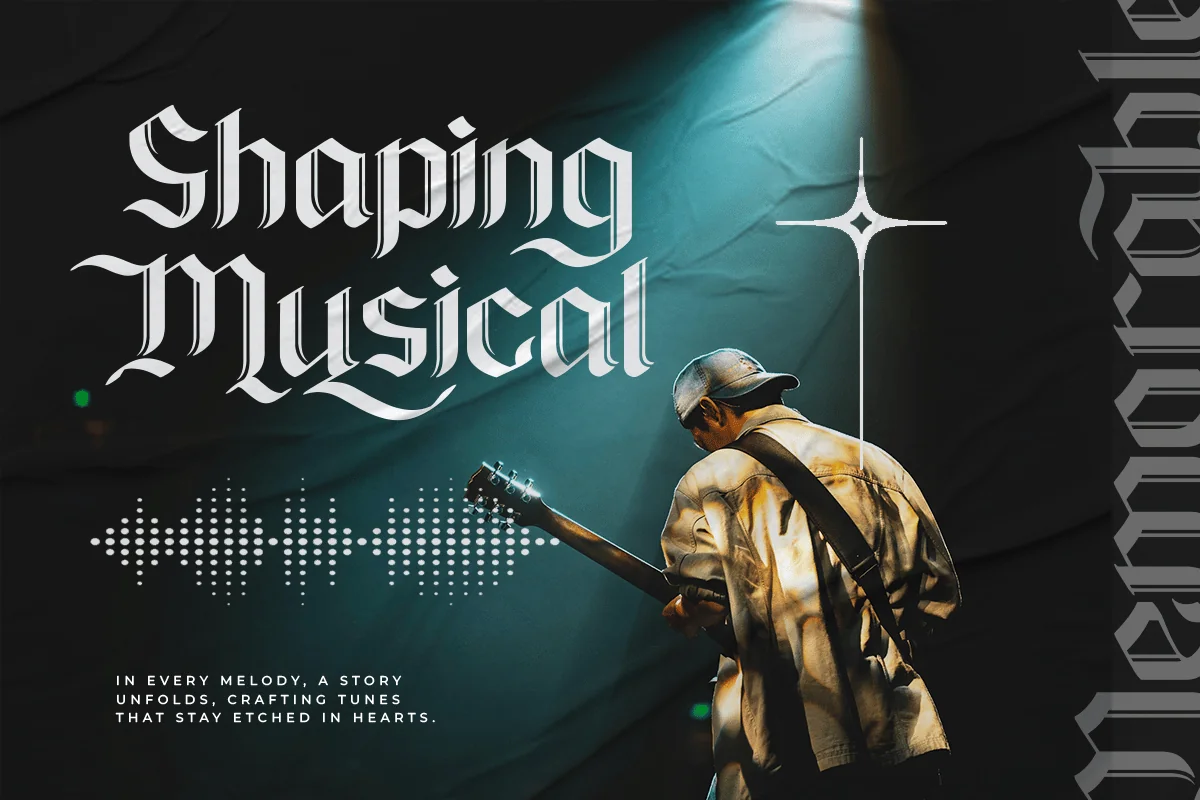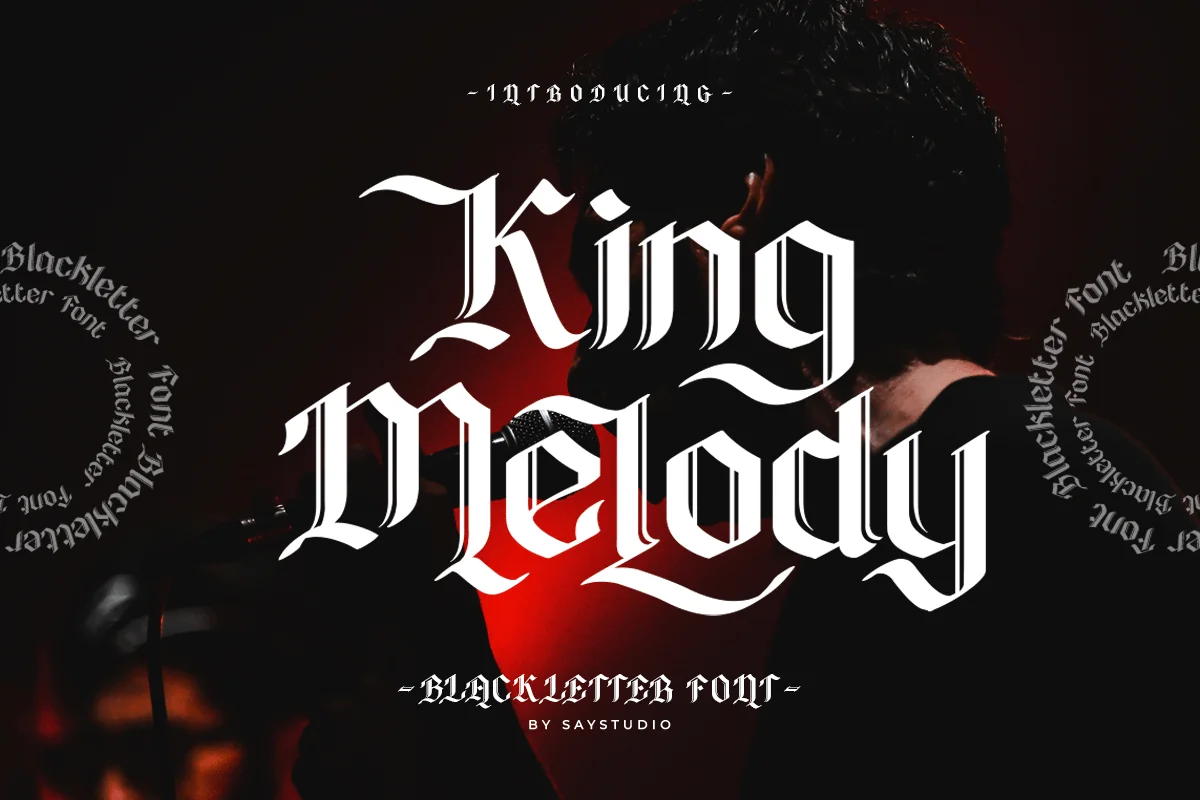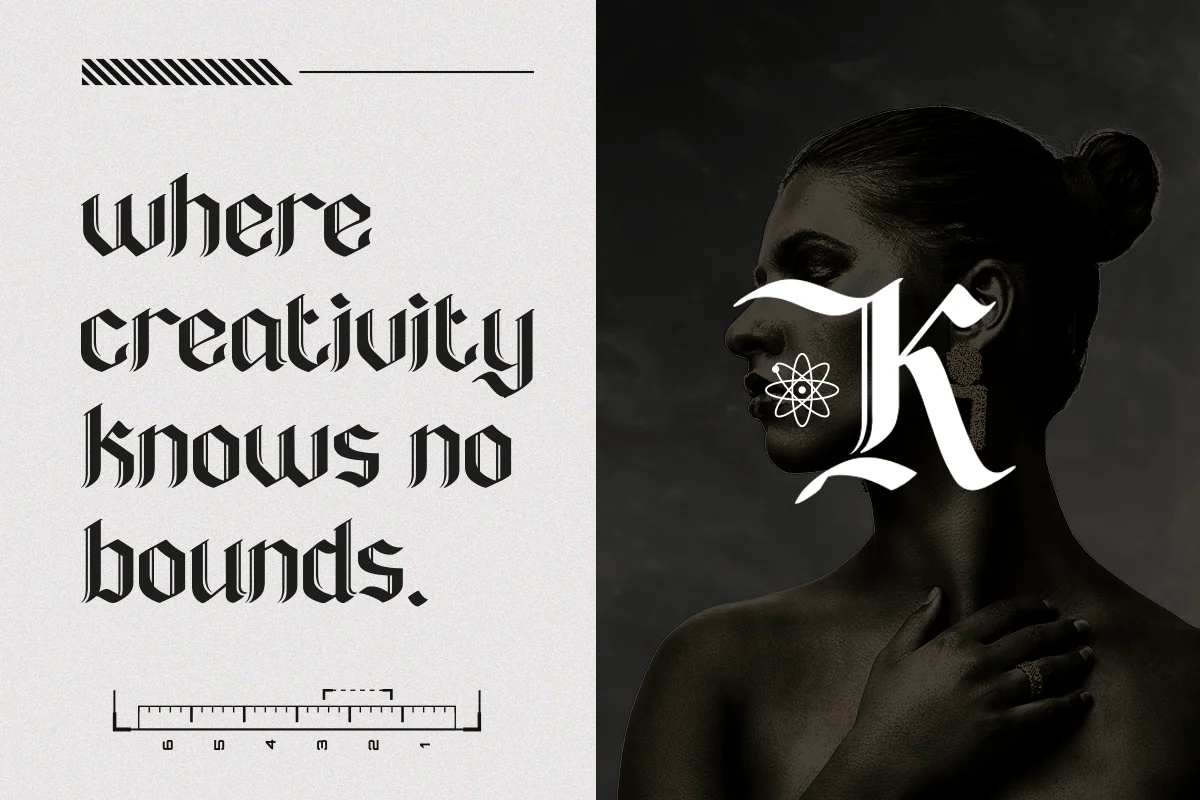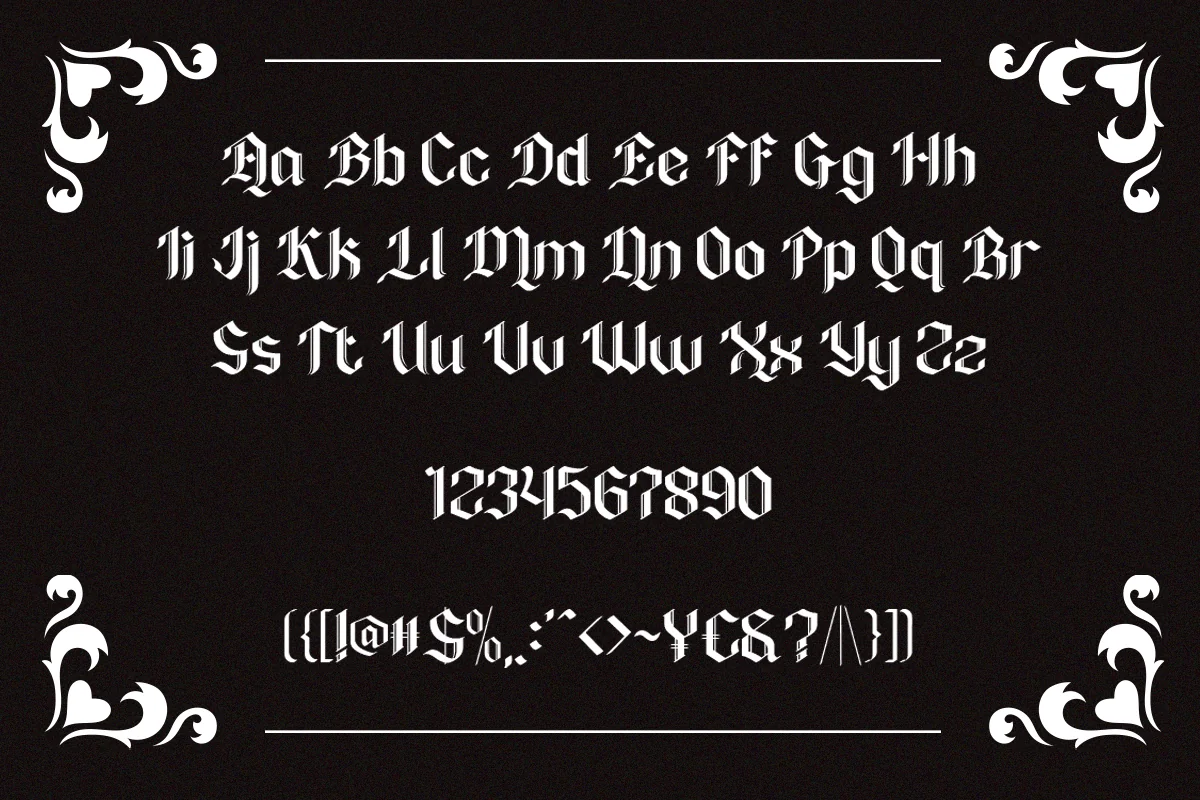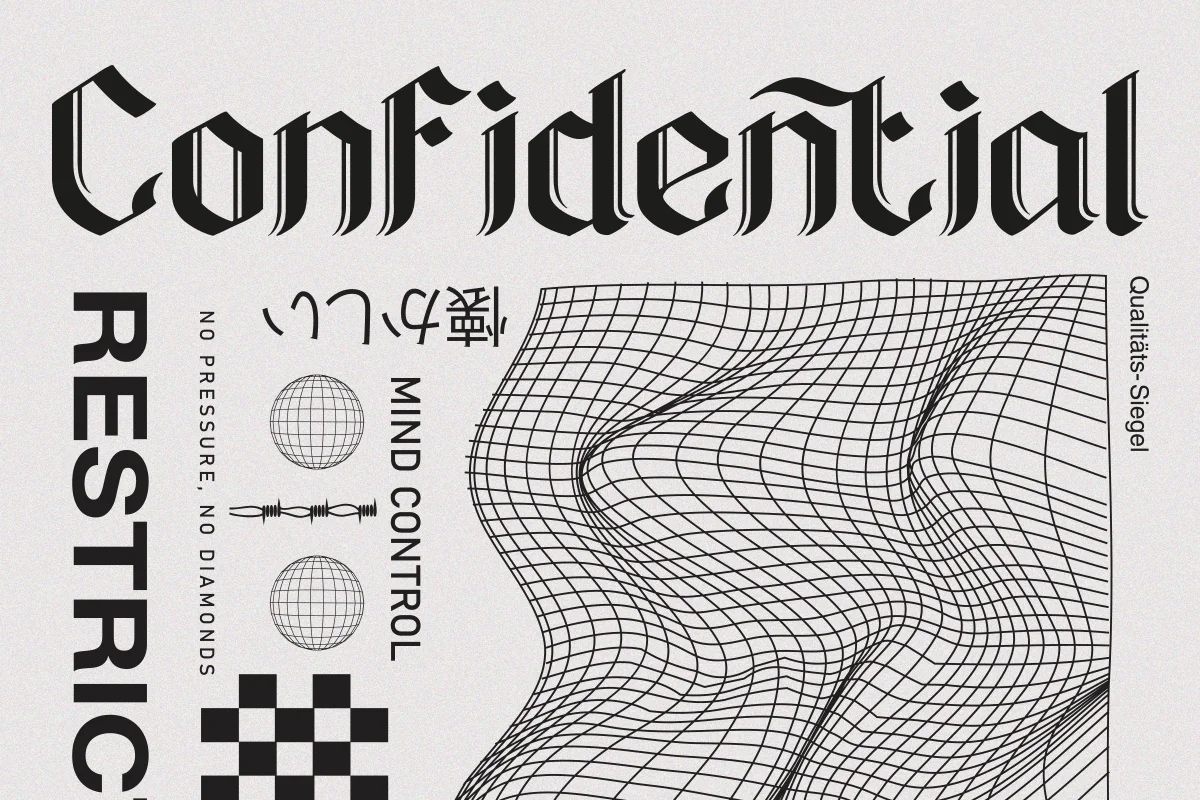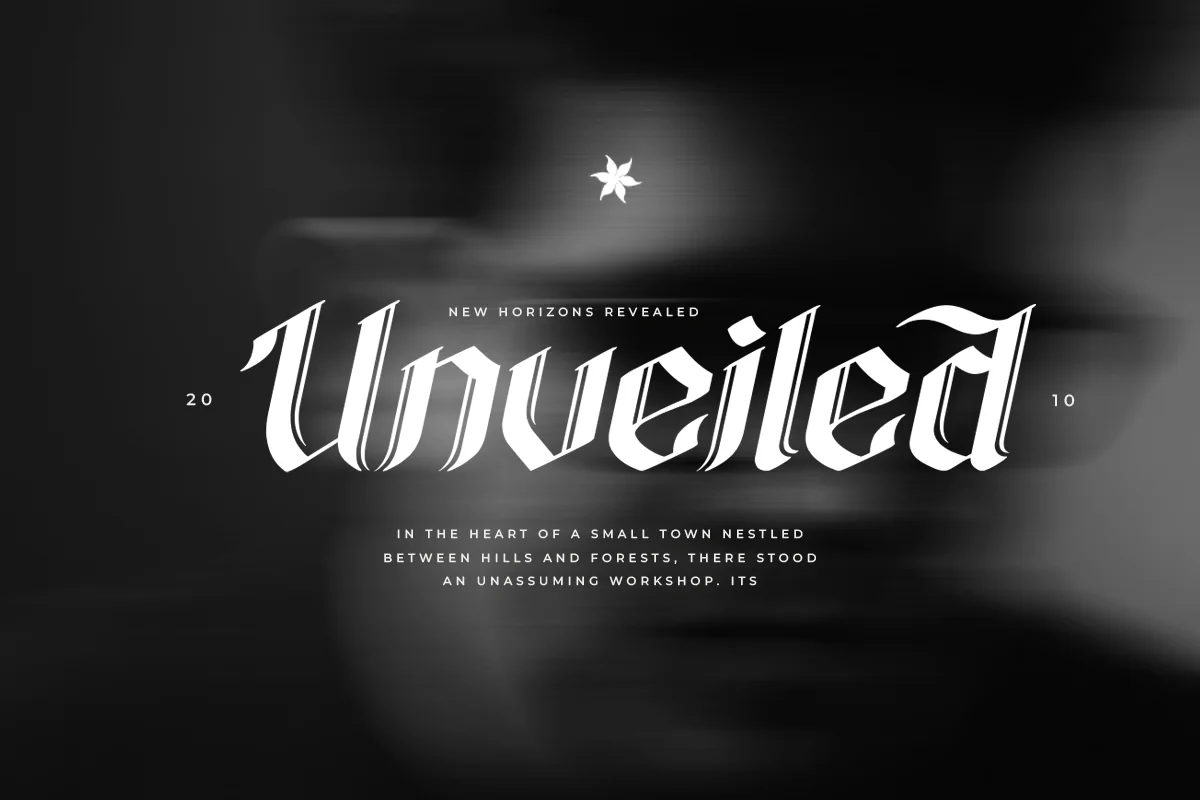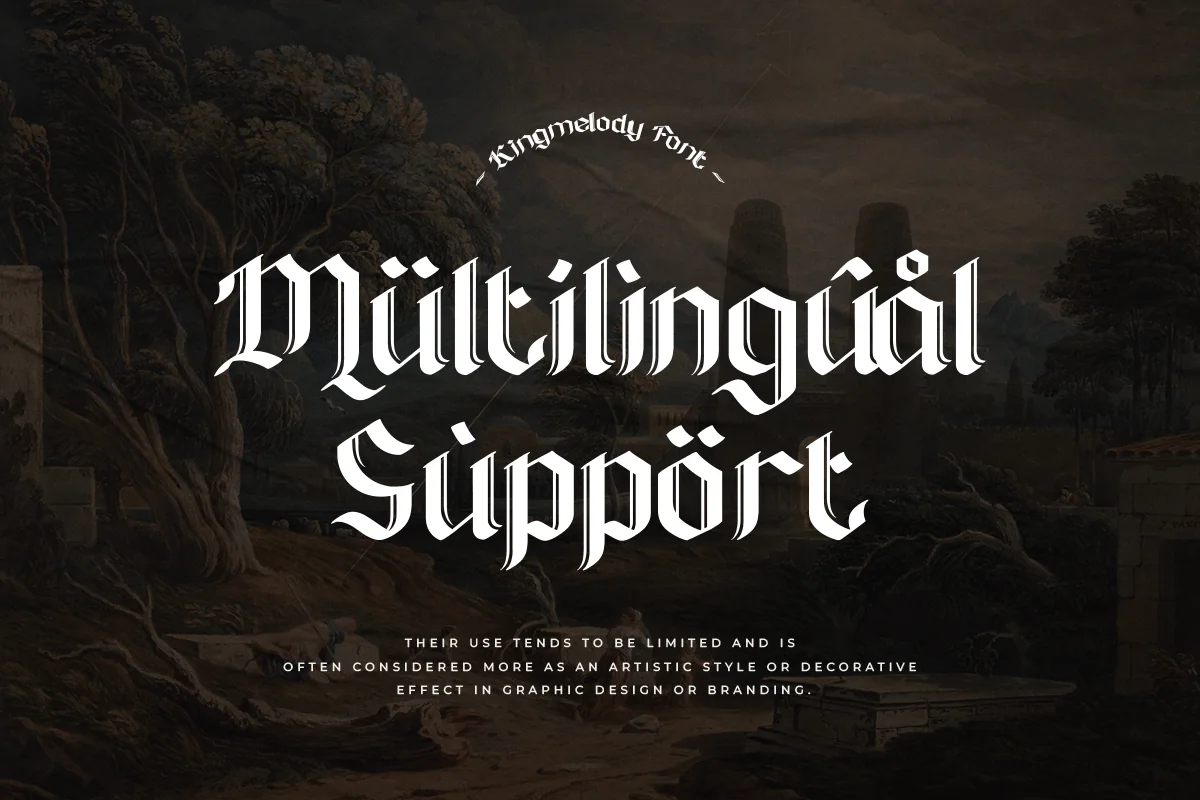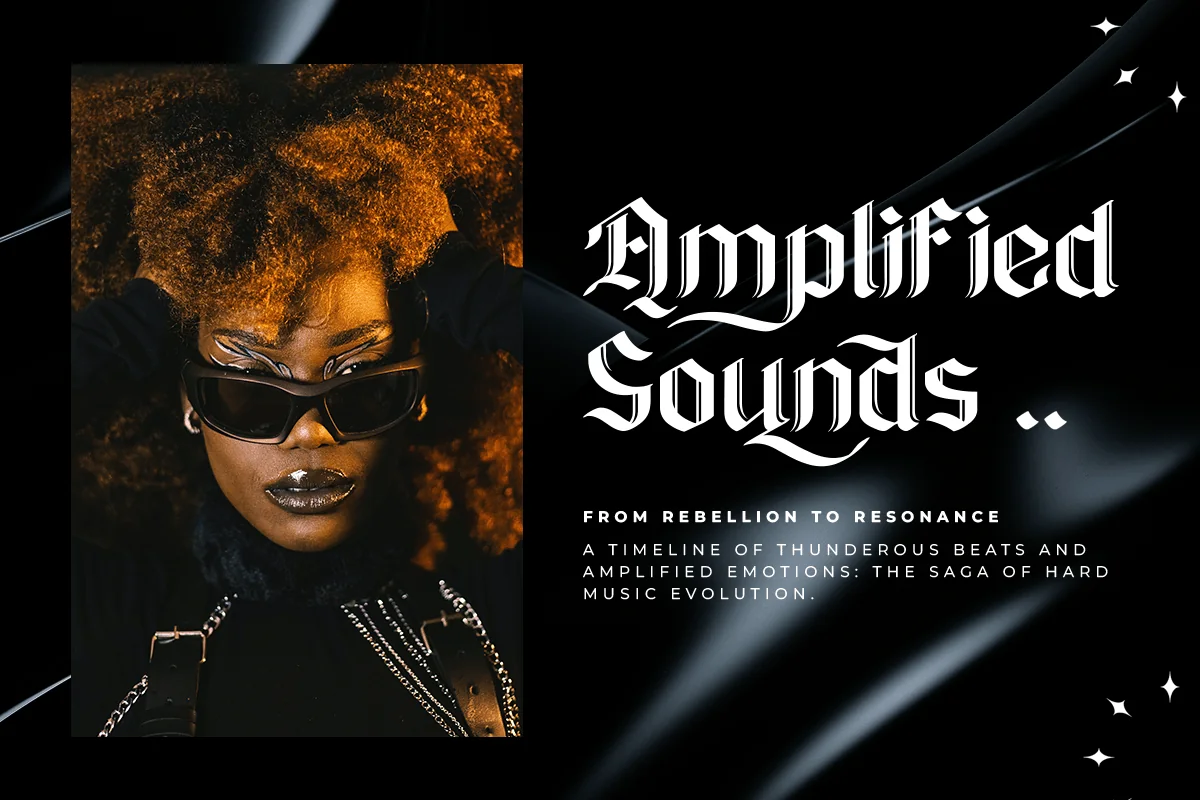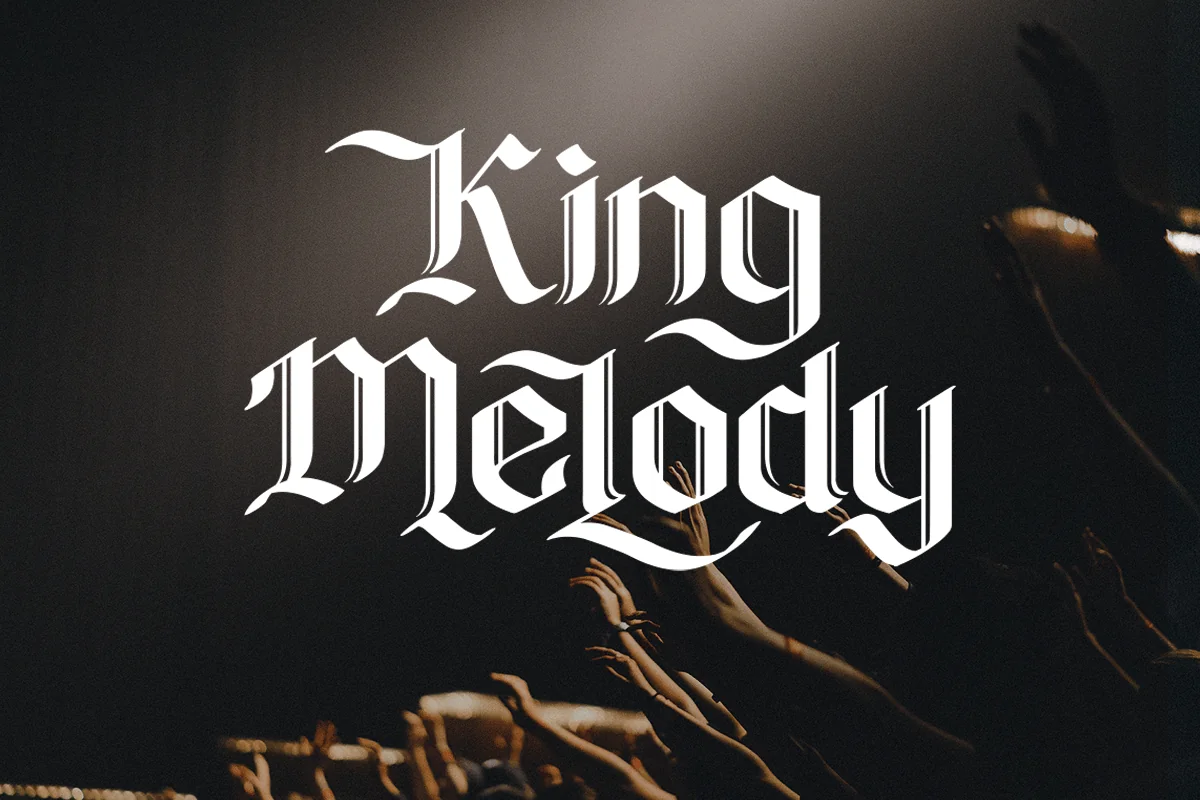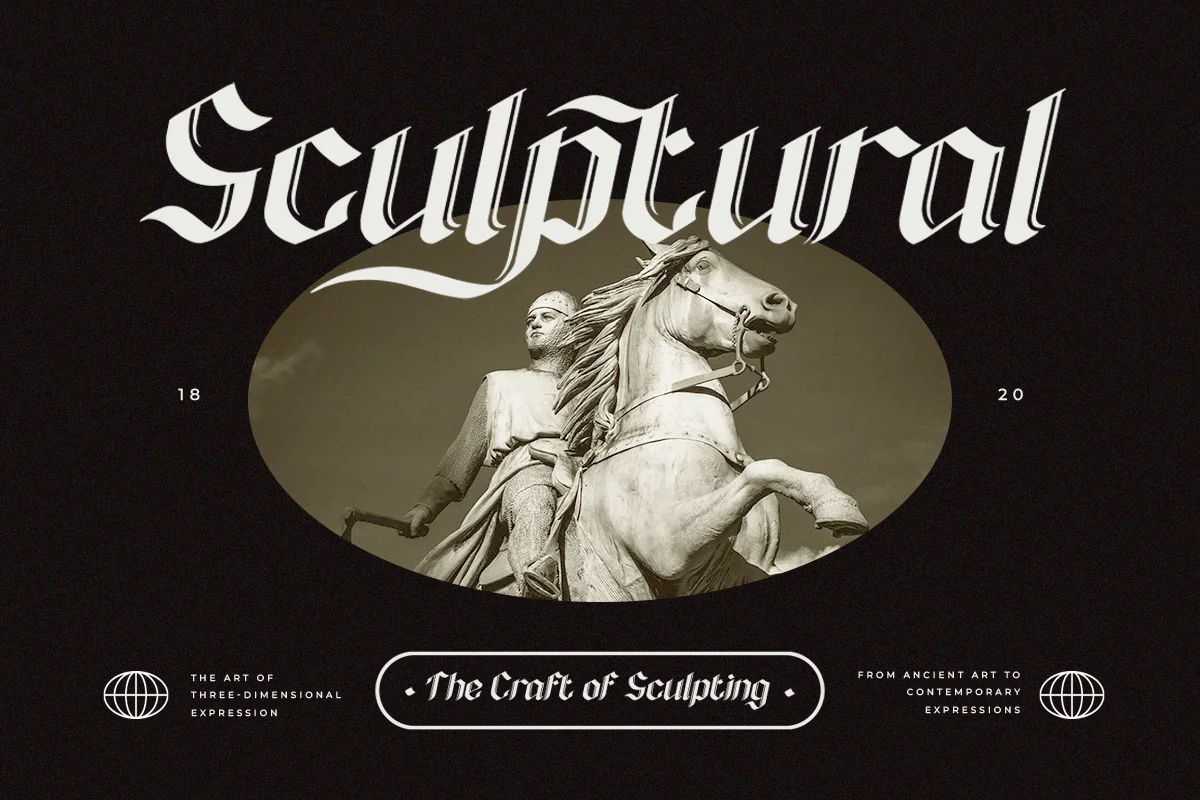
King Melody – Lettering Modern Font
King Melody is a vintage blackletter font that gives focus on contemporary display type. This vintage-made new typeface is unmistakably blackletter, However, it is accessible enough to be used across many projects, and italic version included
King Melody Font is ideal for headings , flyers, greeting cards, product packaging, book covers, printed quotes, logotype, apparel design, and album covers, branding, Instagram, print posters, magazines, Fashion, whatever.